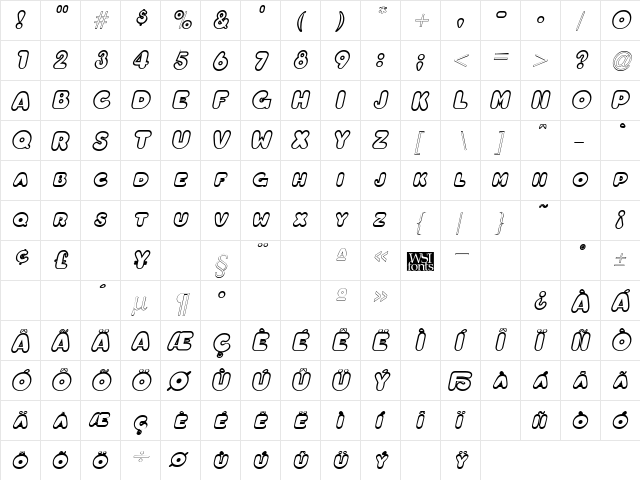
ChubbyOutline Bold Italic
Design Context for ChubbyOutline Typeface
ChubbyOutline brings ornamental detail and strong personality to headlines and identities, where visual impact matters more than quiet functionality. The slanted form adds forward momentum and visual energy. Its bold stroke weight gives it real presence on the page.
Font Pairing: Pair with a clean neutral sans-serif for body copy to let ChubbyOutline's character lead without overwhelming the composition.
Pro Tip: Treat ChubbyOutline as the centrepiece of your typographic hierarchy. One strong heading set in a decorative face can carry an entire layout.